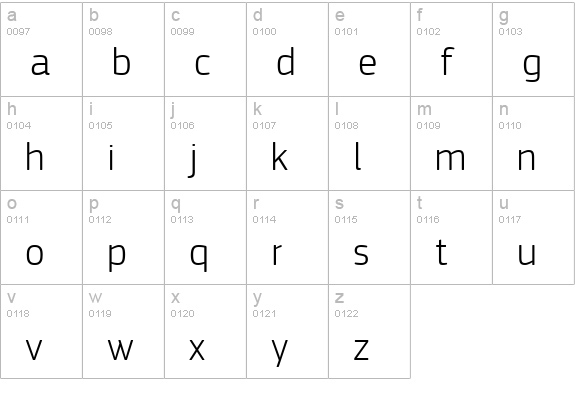
PFSquareSansPro-Light is a refined, elegant variant in the PFSquareSansPro typeface family \xE2\x80\x94 well suited to elegant body text, refined sub-headings, and luxury branding.
PFSquareSansPro-Light font is a sleek and modern typeface that exudes elegance and sophistication. With its clean lines and subtle curves, this font is perfect for conveying a sense of refined style in any design project. The light weight of the font adds a touch of delicacy while maintaining excellent readability. What sets PFSquareSansPro-Light font apart is that it is freely available to download at FontsMarket.com. This means you can easily incorporate this beautiful typeface into your projects without any additional cost. Whether you're designing a website, creating a logo, or working on a print publication, PFSquareSansPro-Light font is a versatile choice that will elevate your work to the next level.